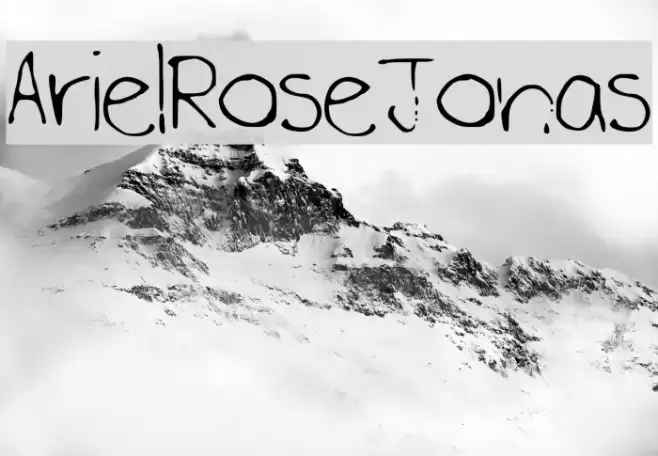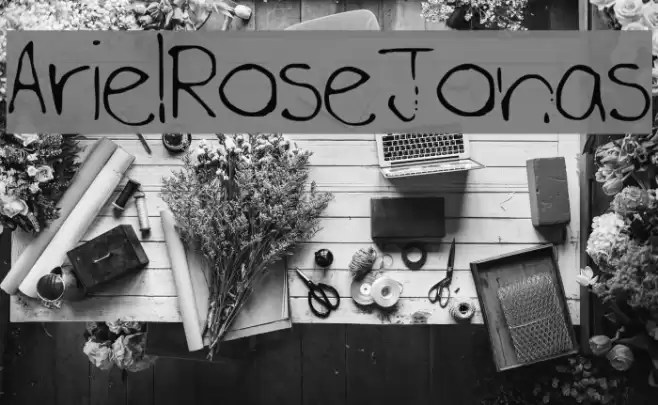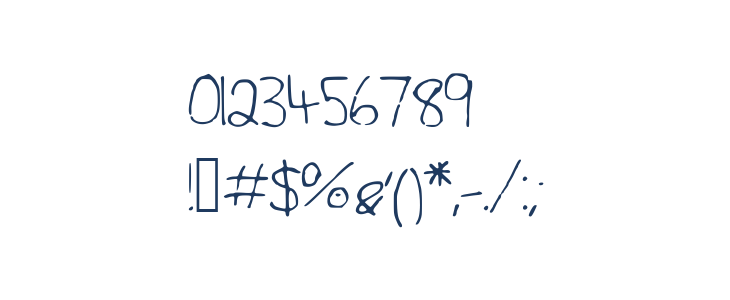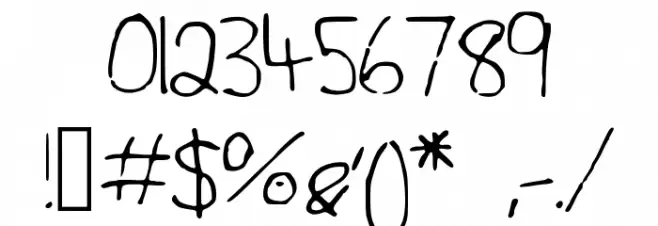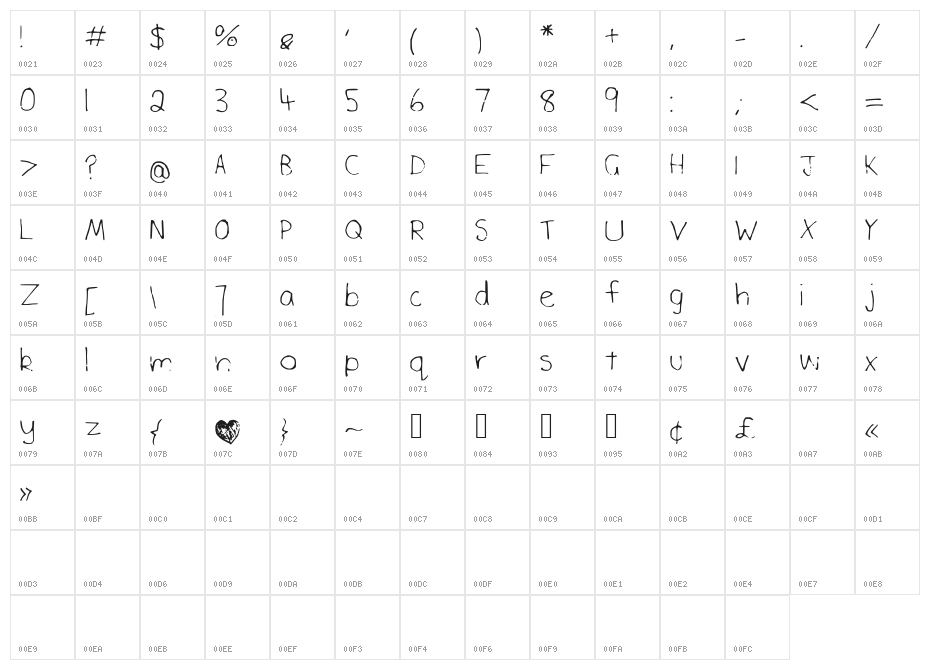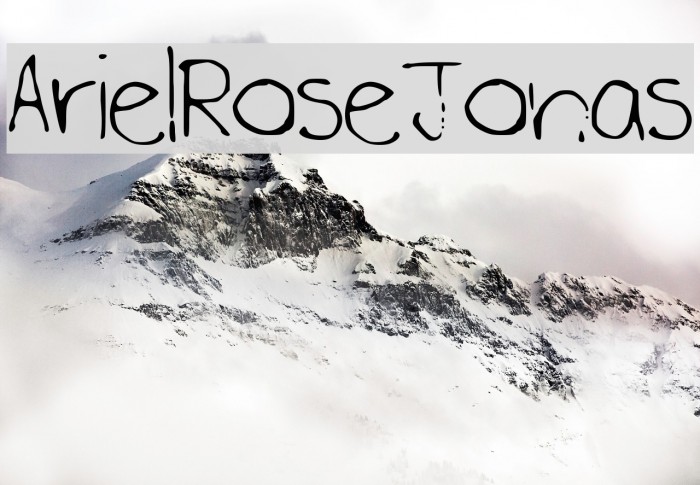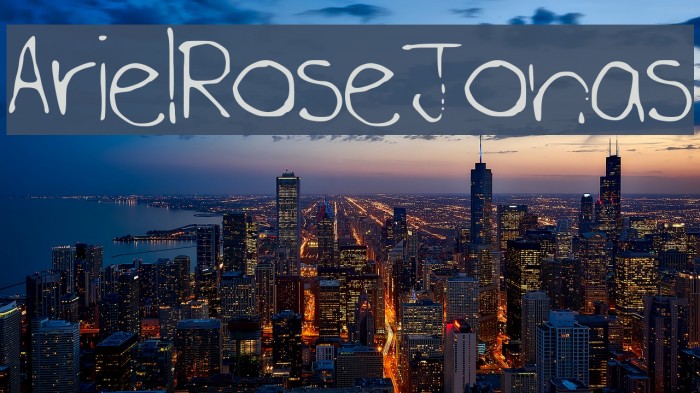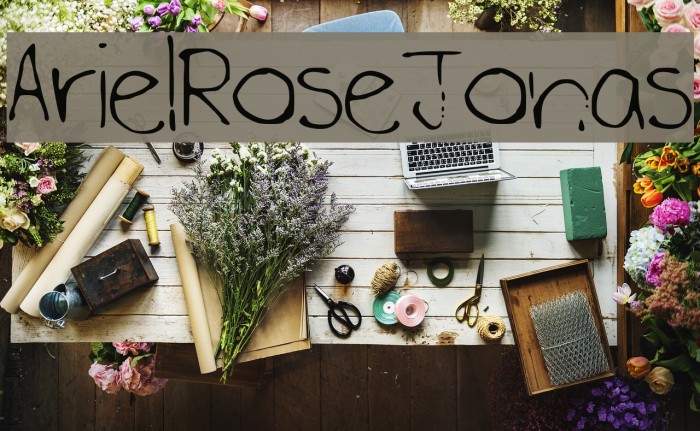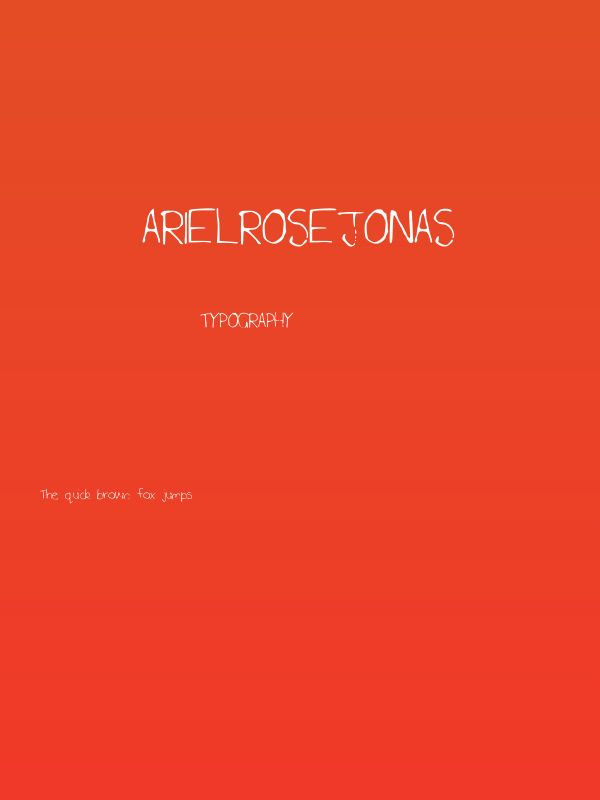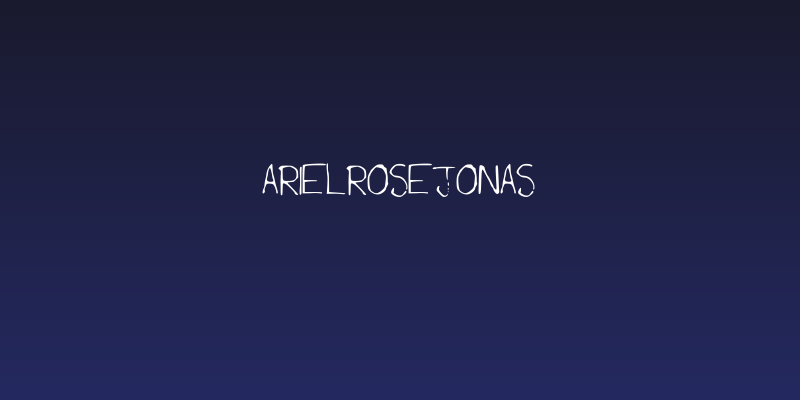
ArielRoseJonas Font
ArielRoseJonas Description
This font exhibits a playful and informal handwritten style, characterized by its uneven strokes and slightly irregular letterforms. The uppercase letters are bold and prominent, while the lowercase letters maintain a consistent flow, adding to the casual aesthetic. Numbers and special characters follow the same whimsical pattern, making the font suitable for creative and informal projects. The overall appearance is reminiscent of a personal note or doodle, giving it a unique charm.
A playful, handwritten font with uneven strokes and a casual aesthetic from Handwritten fonts.
- Proposed Projects: Ideal for greeting cards, children's books, casual invitations, and creative branding.
- Overall Style: Casual, Playful
- Use Case: Headlines, Informal text, Creative projects